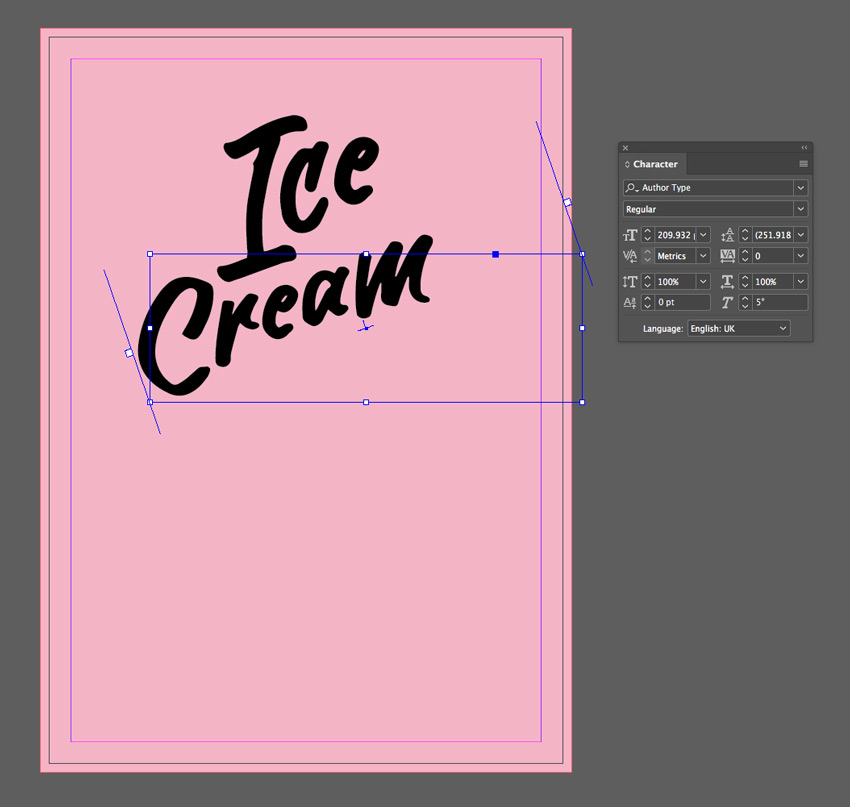
Ice Cream Font Copy And Paste
Ice Cream Font Copy And Paste. Blackpink is a south korean girl group formed by yg entertainment. Best free ice cream fonts;
The font setting the album title above is probably some version of helvetica font, and the font used for their logo is very similar to a geometric sans serif named primetime by hypefonts. Click to find the best 75 free fonts in the ice style. Move and rotate elements by dragging them.
If you are a bold designer and are not afraid to add unusual, extravagant, and fun fonts to your text, try using an ice cream font for your next project. Meaning of 🍨 ice cream emoji. The letters in this font were designed very.